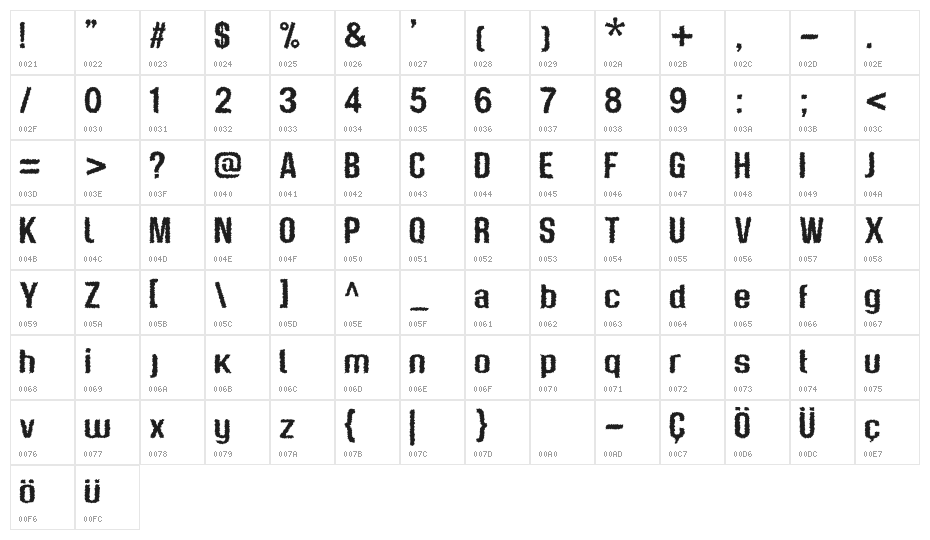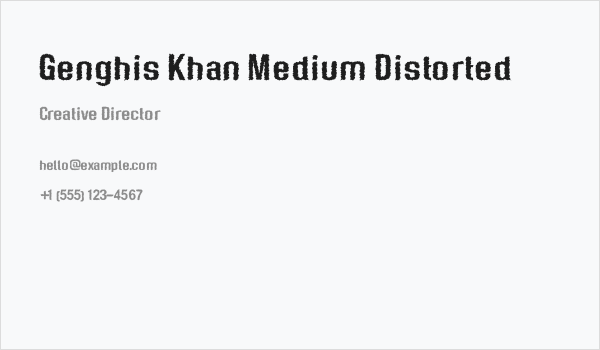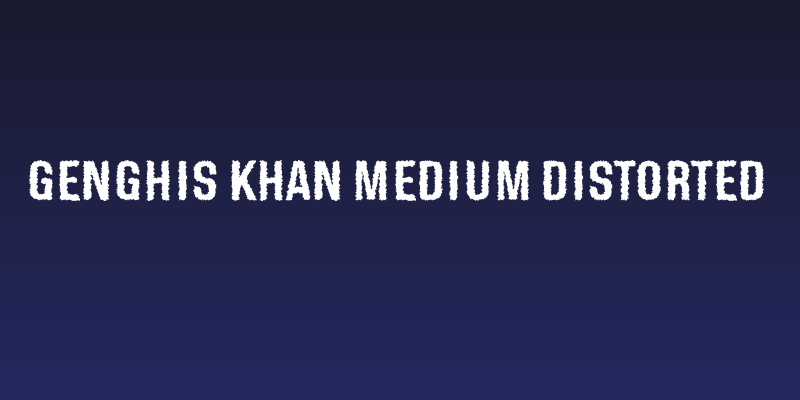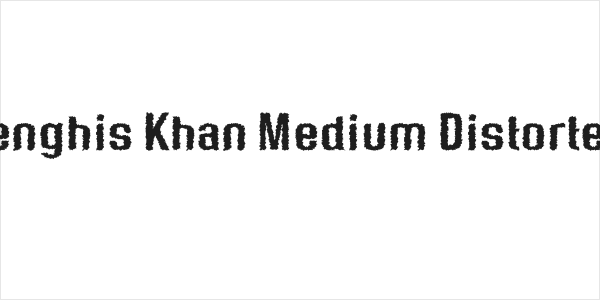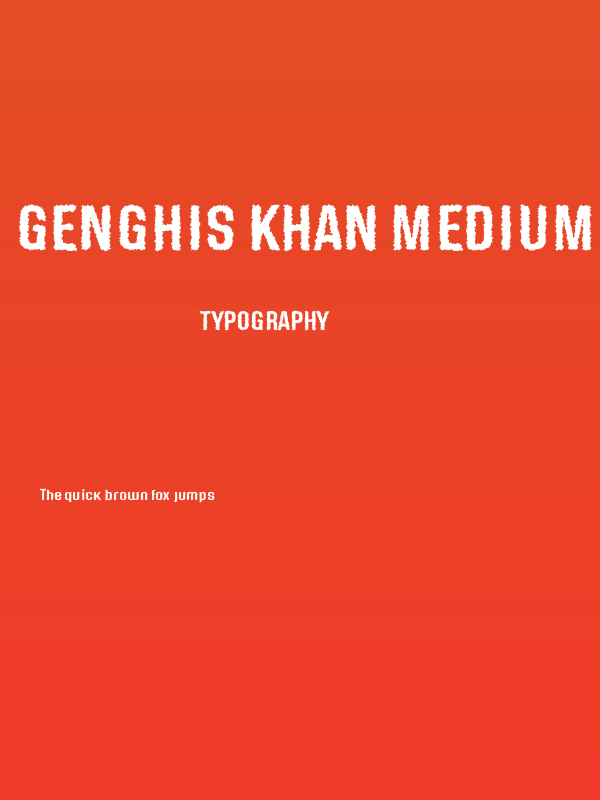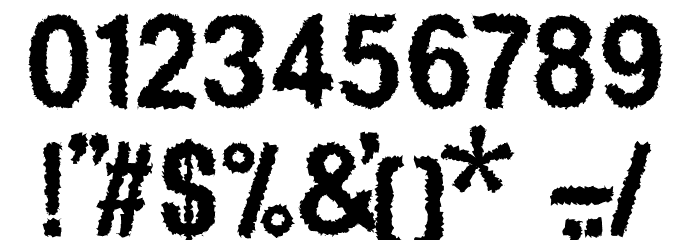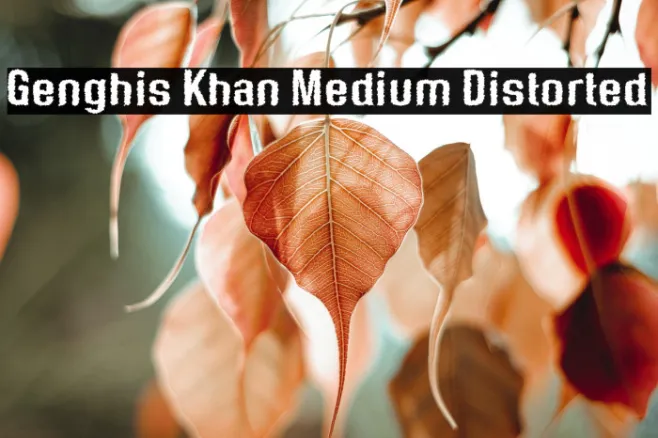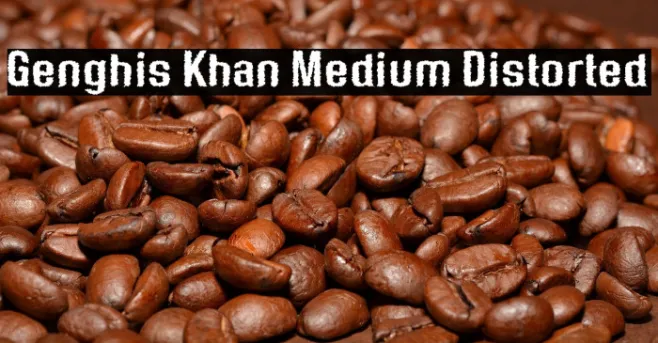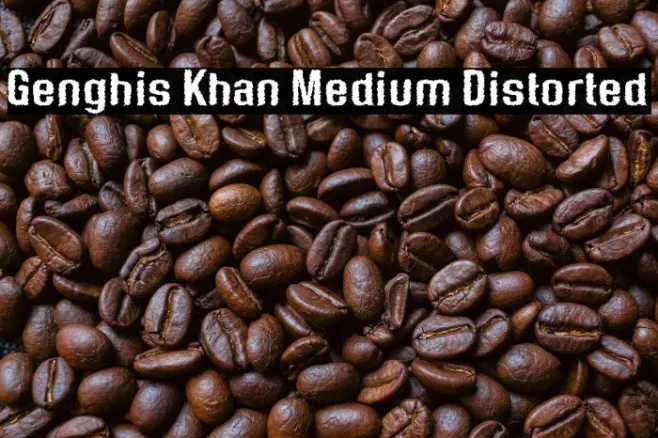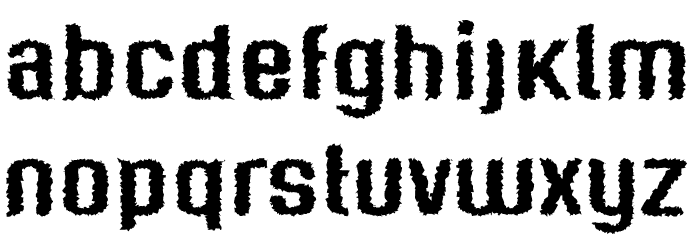
Genghis Khan Medium Distorted Font
Genghis Khan Medium Distorted Description
This font features a rugged, distressed appearance, giving it a unique and bold character. The letters are heavily textured, resembling a weathered or eroded surface, which adds a sense of depth and movement. The uppercase and lowercase letters maintain a consistent style, with each character exhibiting irregular edges that contribute to the overall distressed look. The numbers and special characters follow the same design principles, ensuring uniformity across all glyphs. This font's distinctive style makes it stand out, making it ideal for projects that require a strong visual impact.
| Proposed Projects | Ideal for posters, album covers, branding for outdoor or adventure-themed products, and any design requiring a bold, eye-catching typeface. |